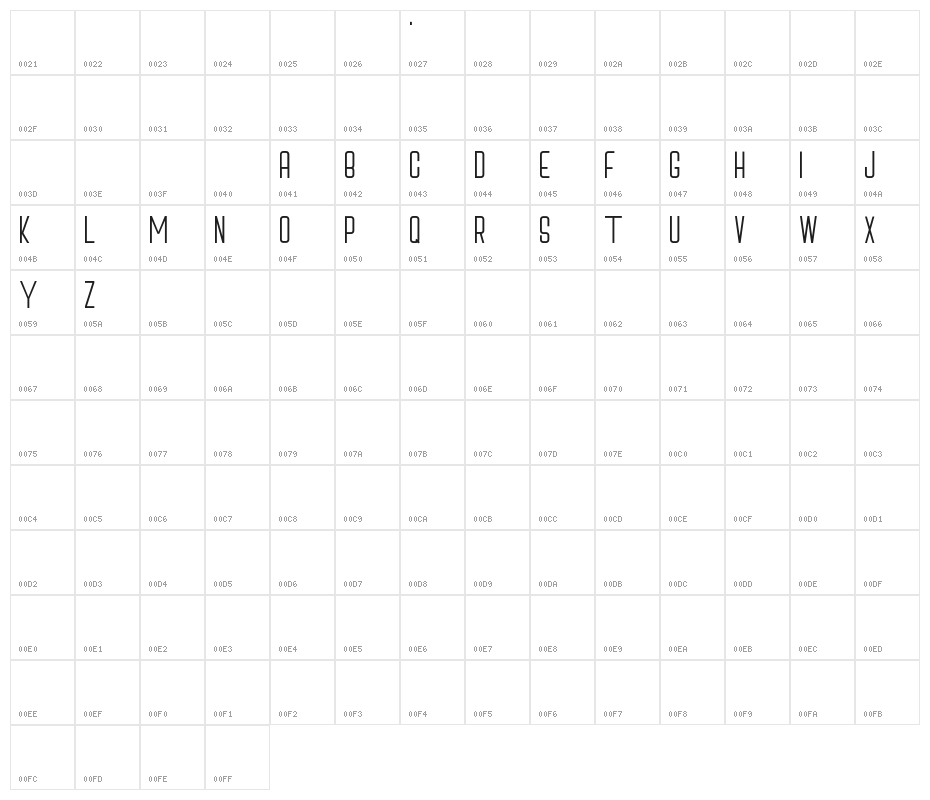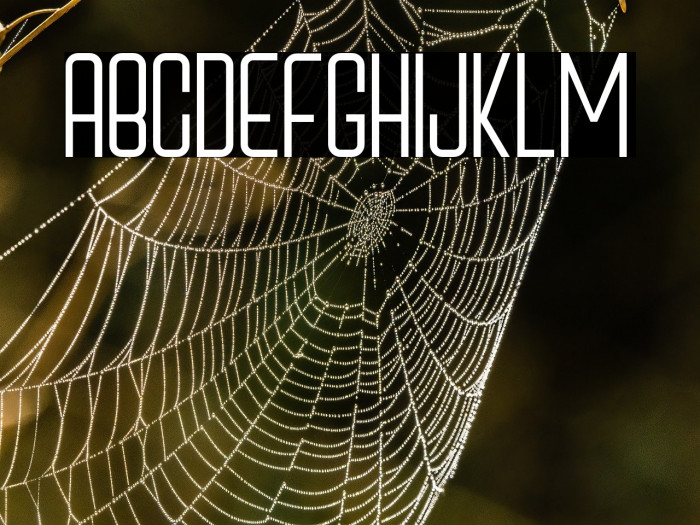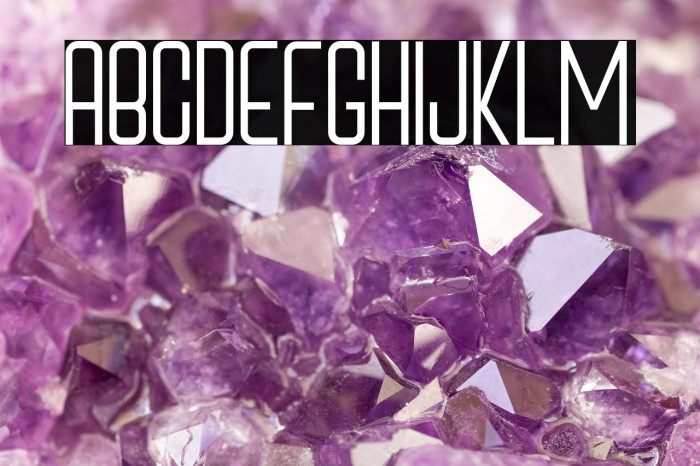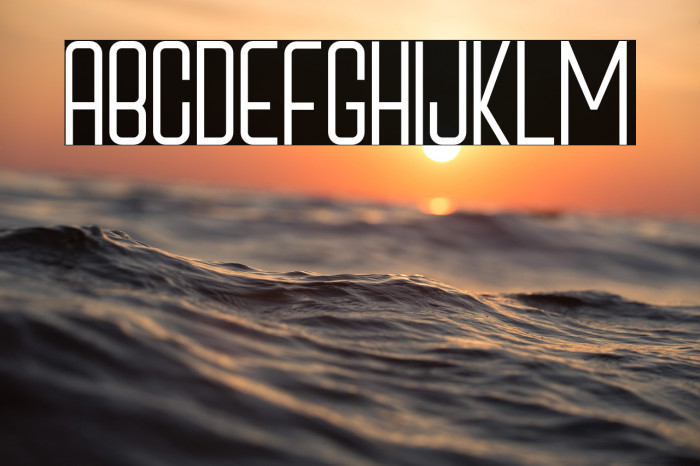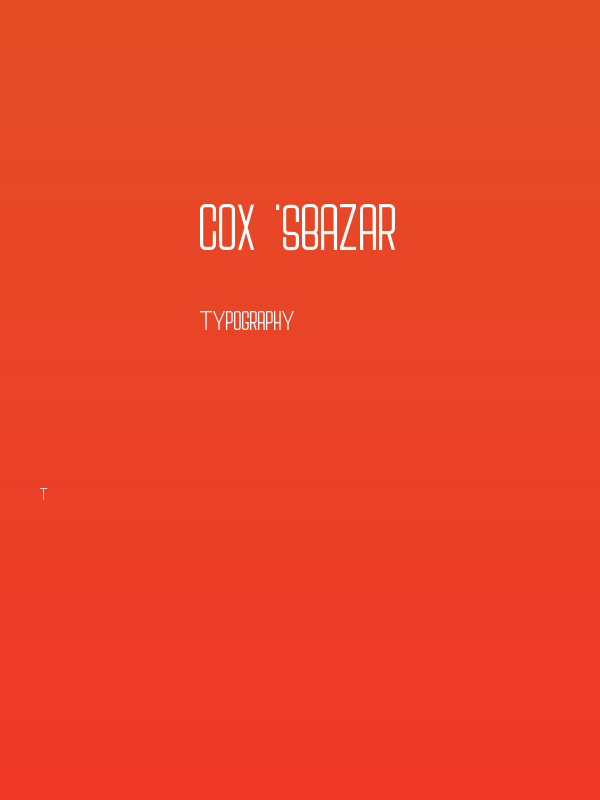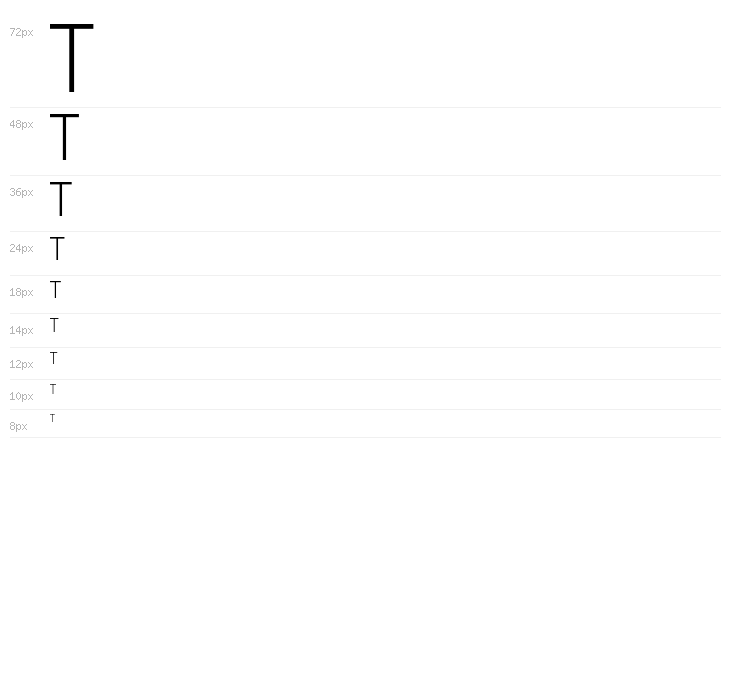
Cox'sBazar Font
Cox'sBazar Description
This font features a modern and sleek design with tall, narrow characters that convey a sense of elegance and sophistication. The uppercase letters are uniformly aligned with a consistent height, while the strokes are clean and precise, giving it a contemporary feel. The absence of lowercase letters and numerals suggests a focus on minimalism and simplicity. The overall appearance is geometric, with straight lines and sharp angles, making it suitable for modern design projects. The font's structure is both functional and stylish, ideal for creating a strong visual impact.